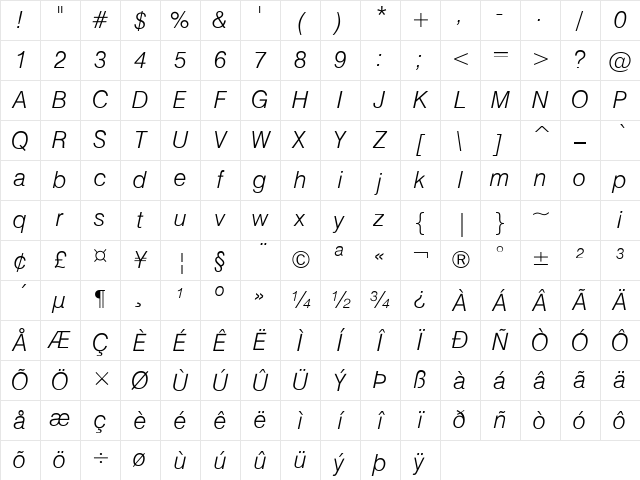
HailstenLight Italic Free Font
Design Context for HailstenLight
HailstenLight is a composed and adaptable typeface that performs quietly and consistently across a wide range of design contexts. The slanted form adds forward momentum and visual energy. Its slender proportions lend an understated elegance to any composition.
Pro Tip: Use HailstenLight for emphasis, pull quotes, and subheadings where its slanted energy can add rhythm to the layout.